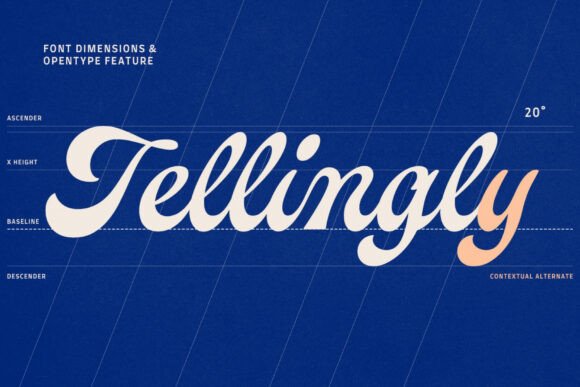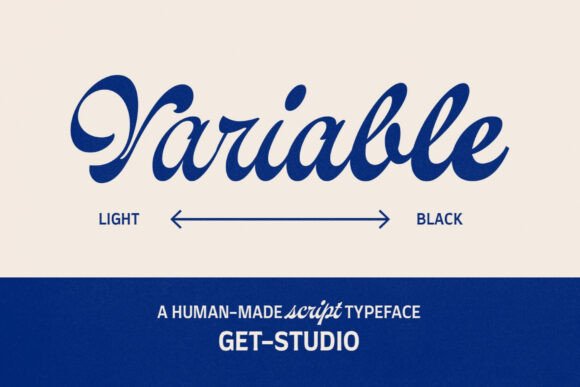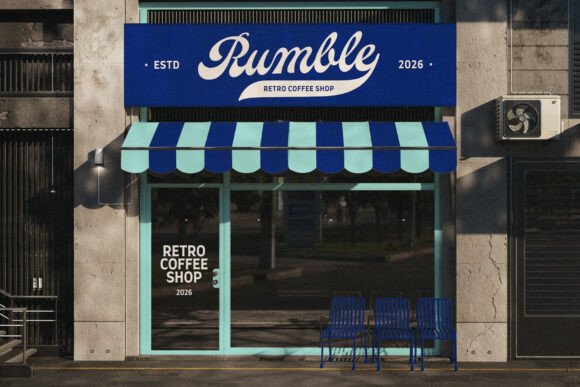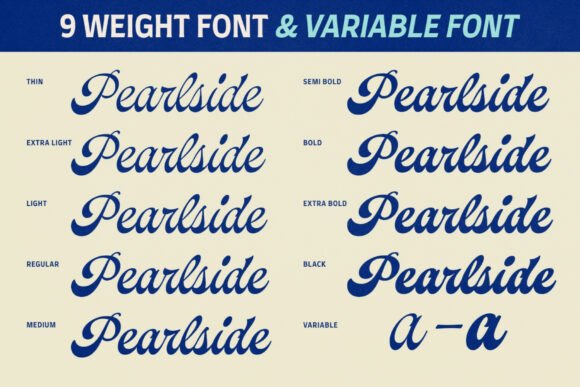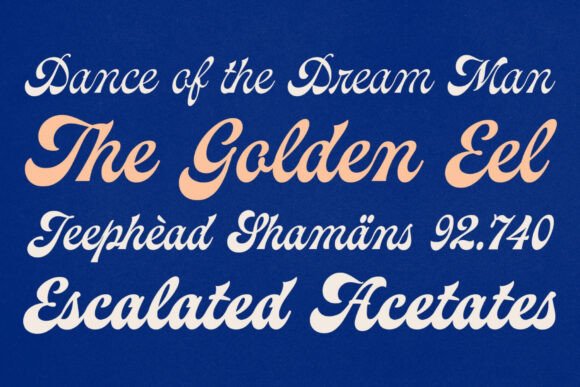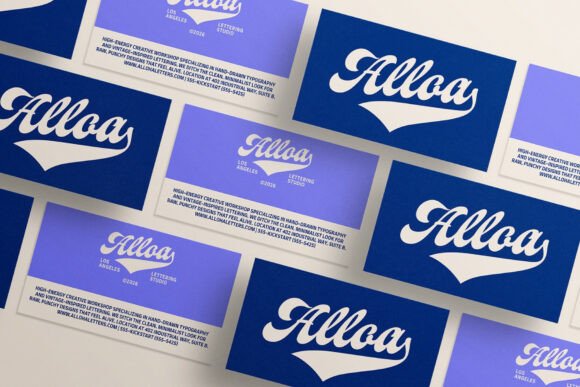
Introduction to Pearlside Font
Have you ever been working on a creative project, pouring your heart and soul into it, only to realize that the perfect font is missing? For designers, this is a familiar frustration. But what if you could unlock the key to elevating your designs with a font that embodies the essence of classic Americana? Enter Pearlside Font, a game-changing variable script font that captures the speed, elegance, and nostalgia of vintage car emblems.
With its bold, sweeping cursive strokes and rhythmic slant, Pearlside Font is the perfect choice for designers looking to add a touch of sophistication and whimsy to their projects. Whether you’re creating custom apparel graphics, high-impact social media headers, or nostalgic diner identities, this font is sure to drive your designs home. In this article, we’ll dive into the world of Pearlside Font and explore its features, versatility, and why it’s a valuable resource for designers.
Pearlside Font Key Features
Honest Review: Pearlside Font
As a designer, I’m always on the lookout for high-quality design resources to elevate my creative projects. The Pearlside Font is one such gem that I’d like to share with you.
- ✨ Elegant and refined design aesthetic that works well for luxury brands or high-end designs
- ⚠️ Limited font styles and weights, which might not be suitable for projects requiring extensive typography
Overall, the Pearlside Font is a solid design resource that can add a touch of sophistication to your creative projects. While it may have its limitations, its elegant design and free availability make it a great choice for designers looking for a high-quality font without breaking the bank.
Pearlside Font
The Pearlside Font is commonly used in a variety of creative projects, including social media graphics, presentations, and documents. Its versatility and high quality make it an excellent addition to any design arsenal.